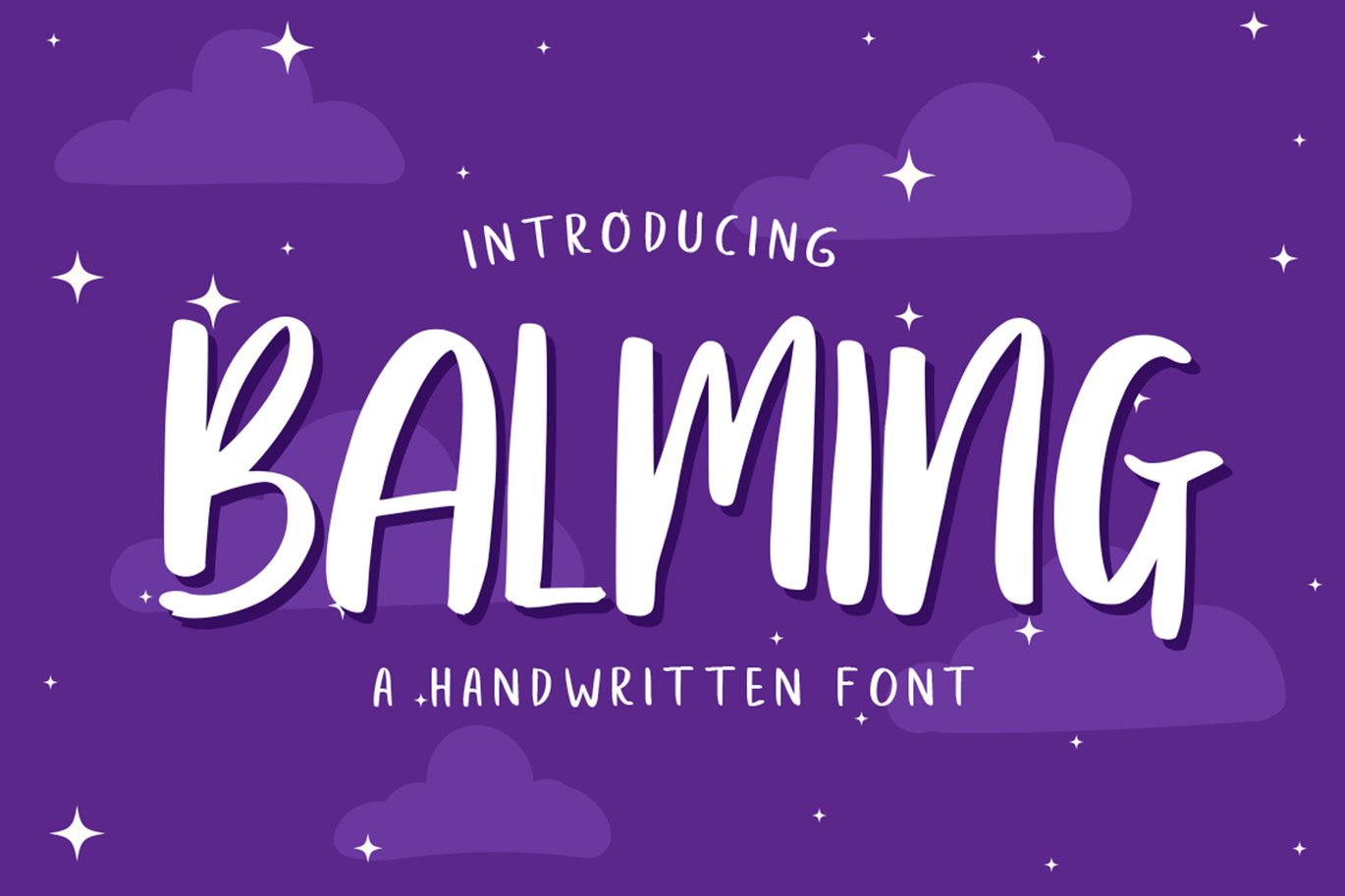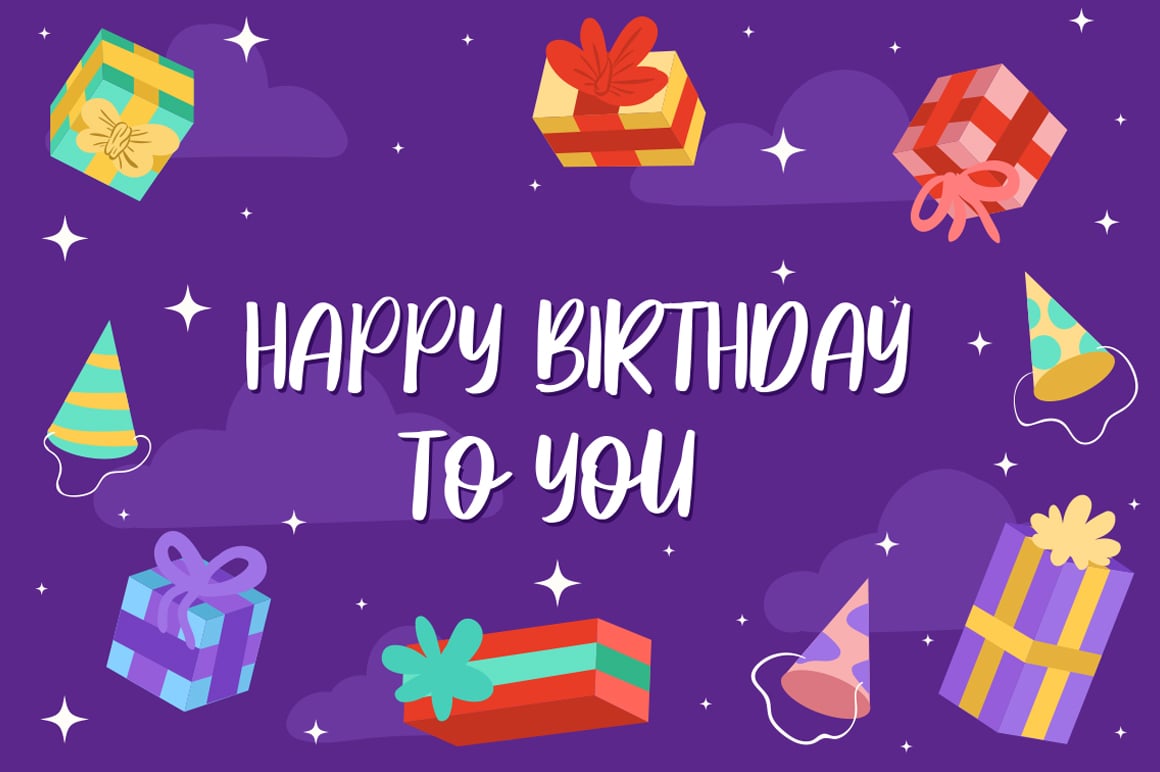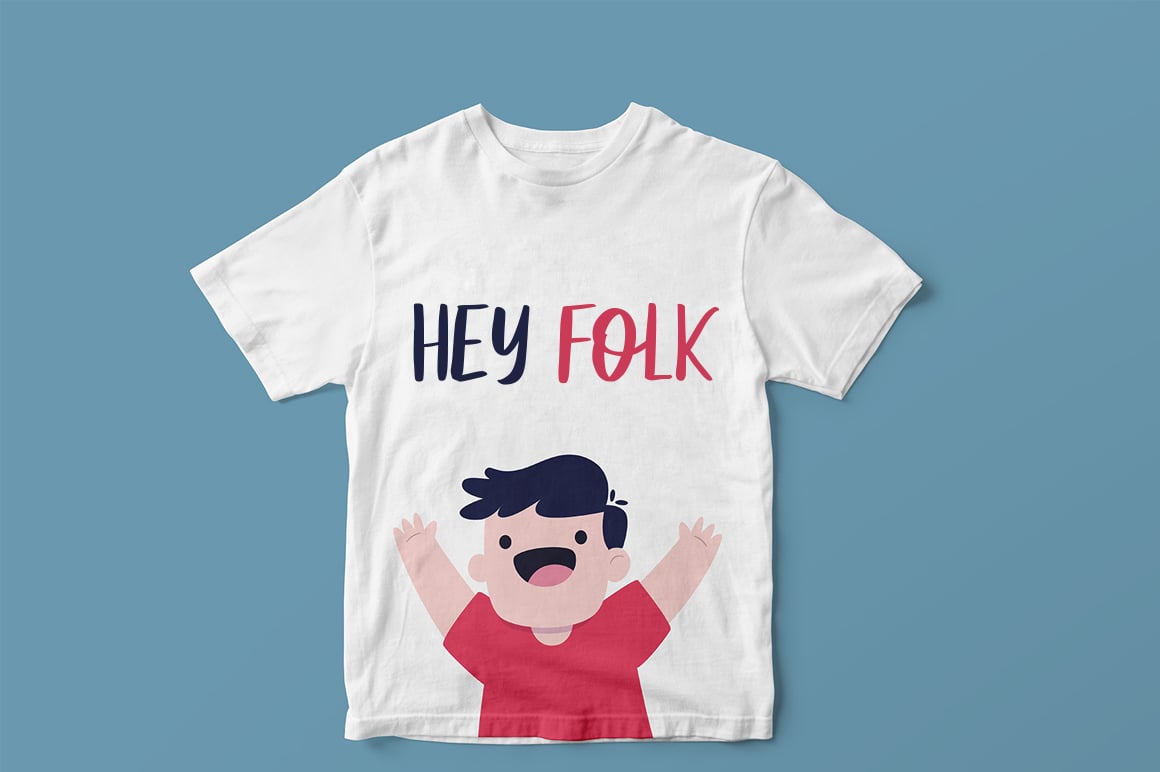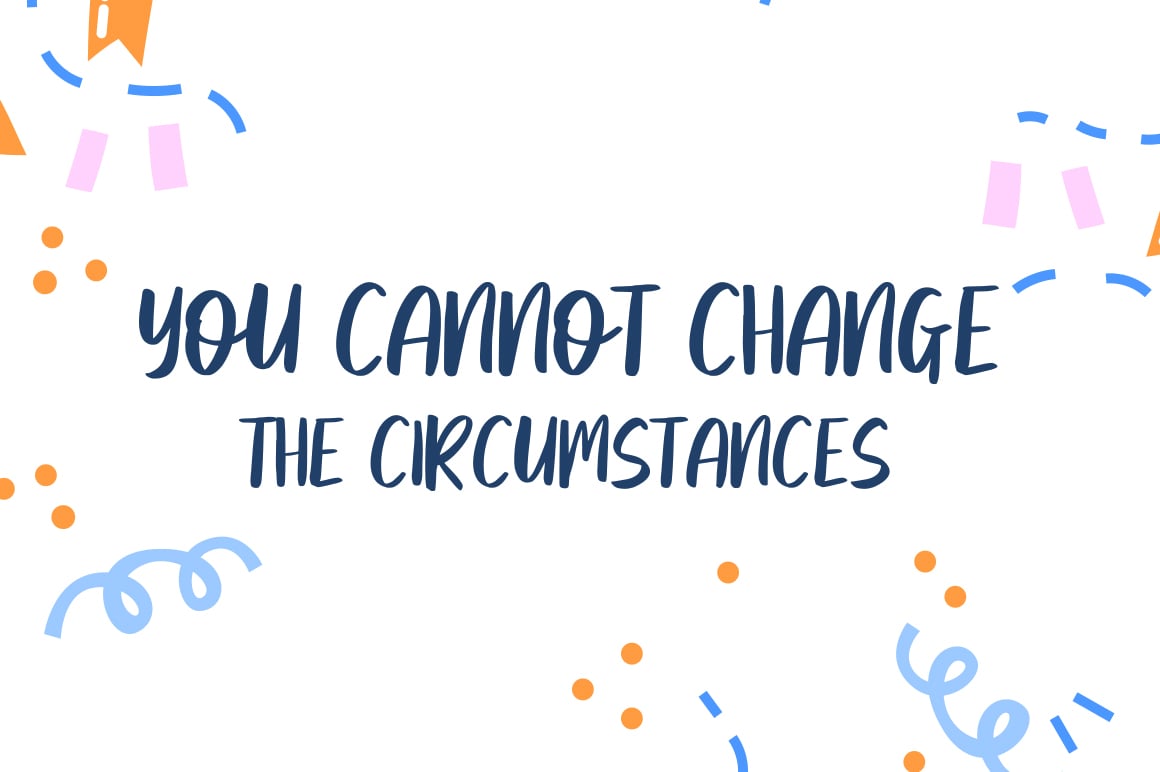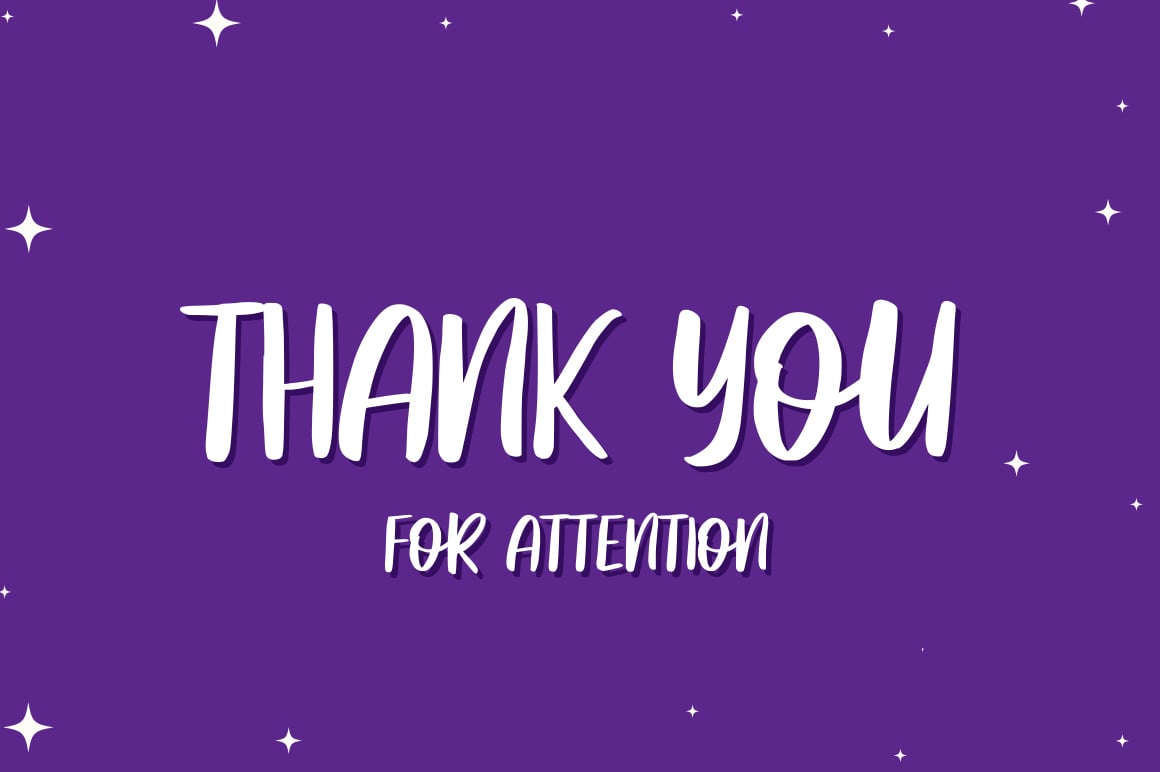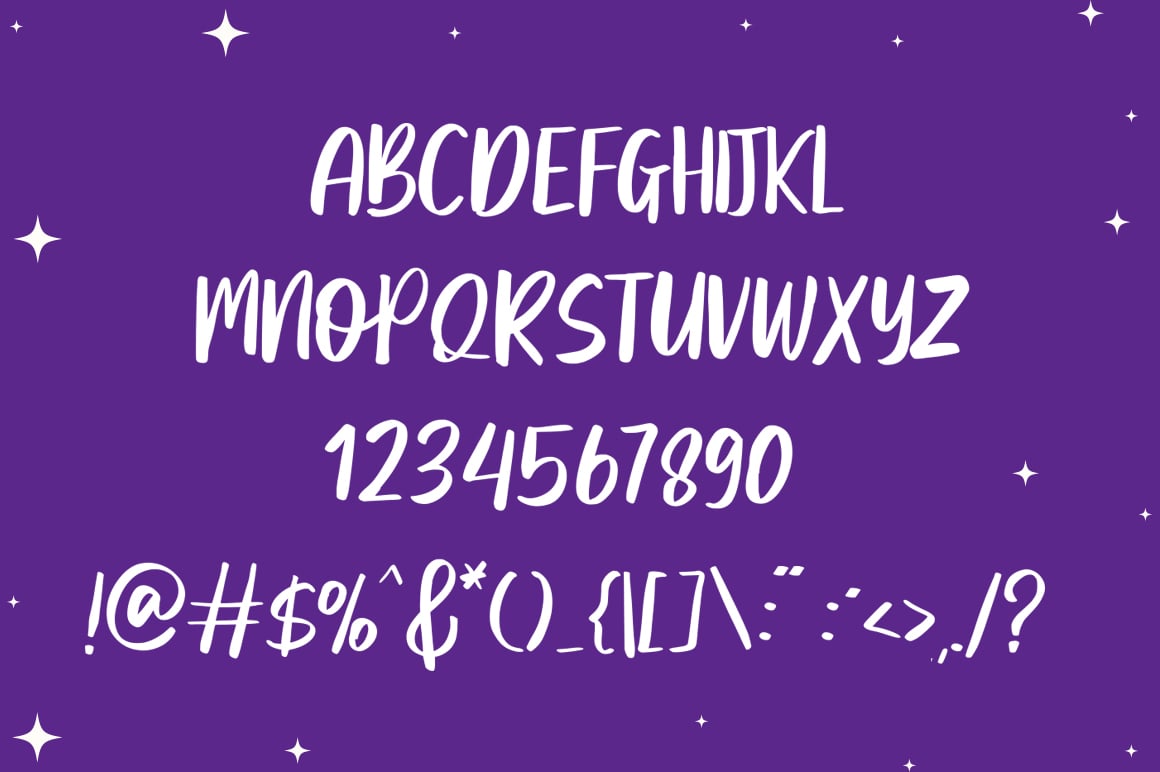
Balming Brush Font
Balming is a Fun handwritten fonts this font looks funny, cute, kids, cartoon, playful, catchy.
best choice for your professional design projects, including signature, watermark on photography, quotes, wedding, fashion, letter, invitation, business card, logo, branding, magazines, social media, advertisements, product designs, and much other design projects.
- Upper + Lowercase Letters
- Numbers + Punctuation
- Ligature Feature